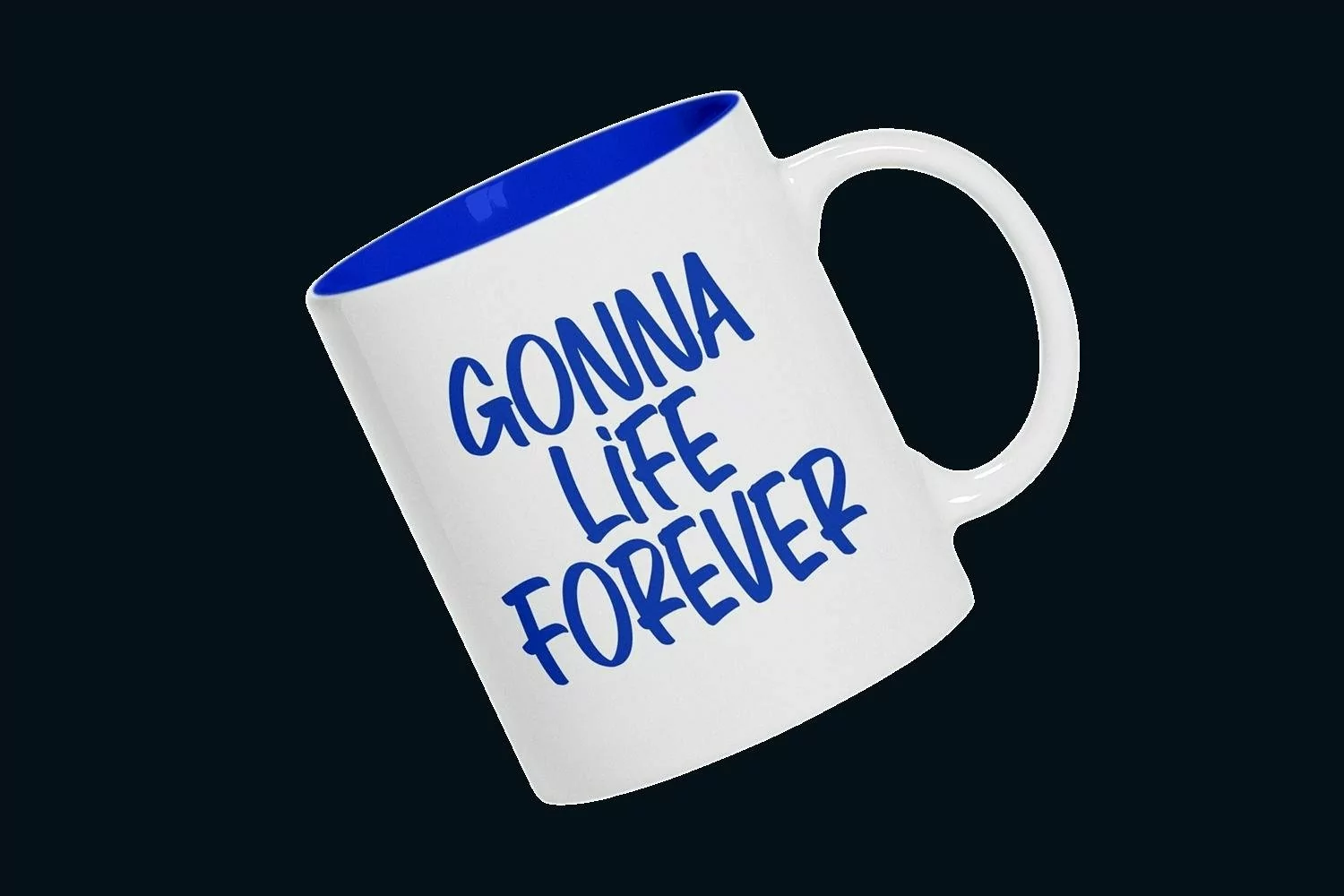
Smooth Maker - Modern Handwritten Font that contain lowercase, uppercase, symbol, and also support multi language. There’s a lot ligatures in this font. This Font also comes with ligatures, alternates and many more. this font suitable for fashion, branding, catalog and other design what you want.